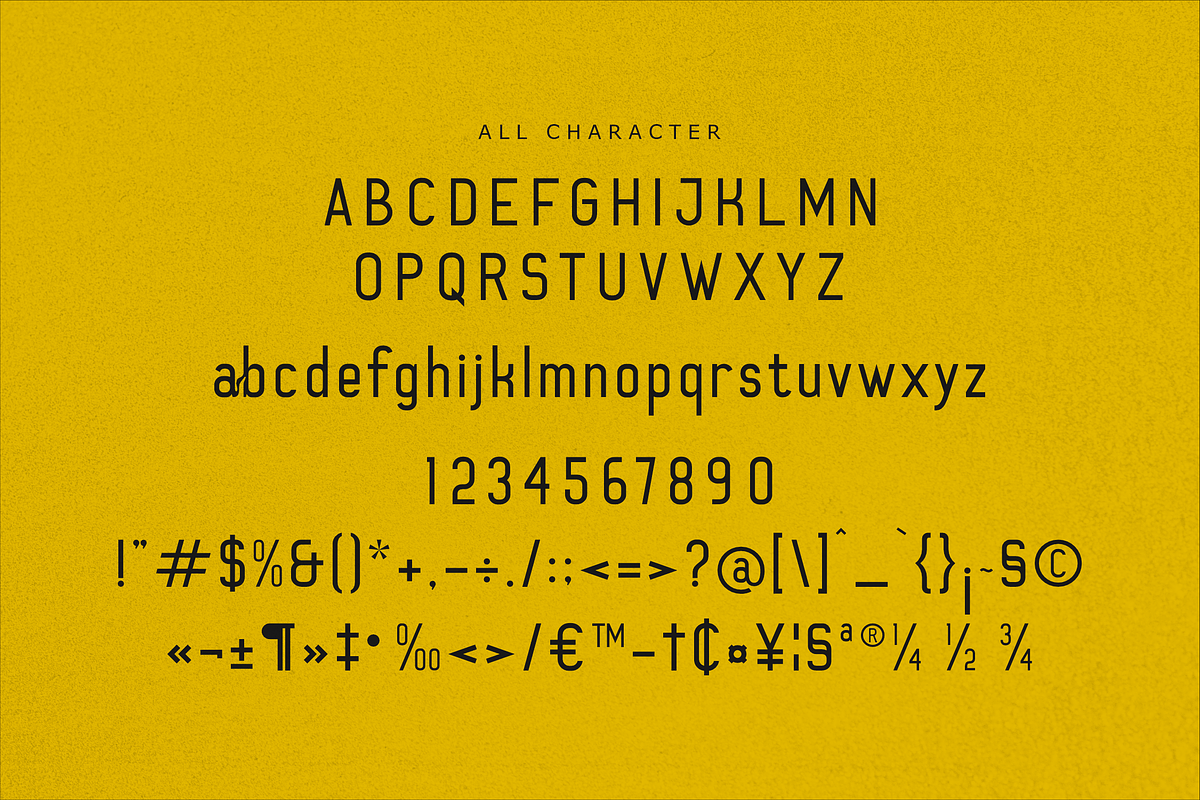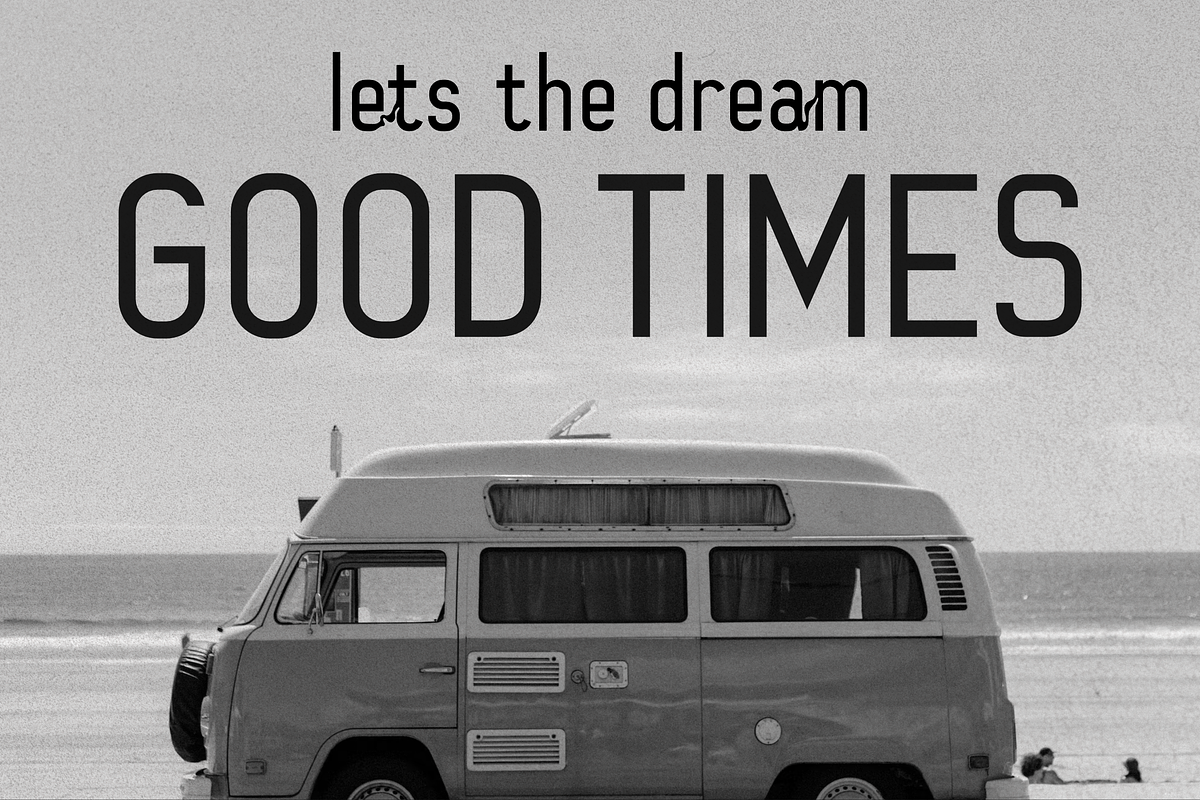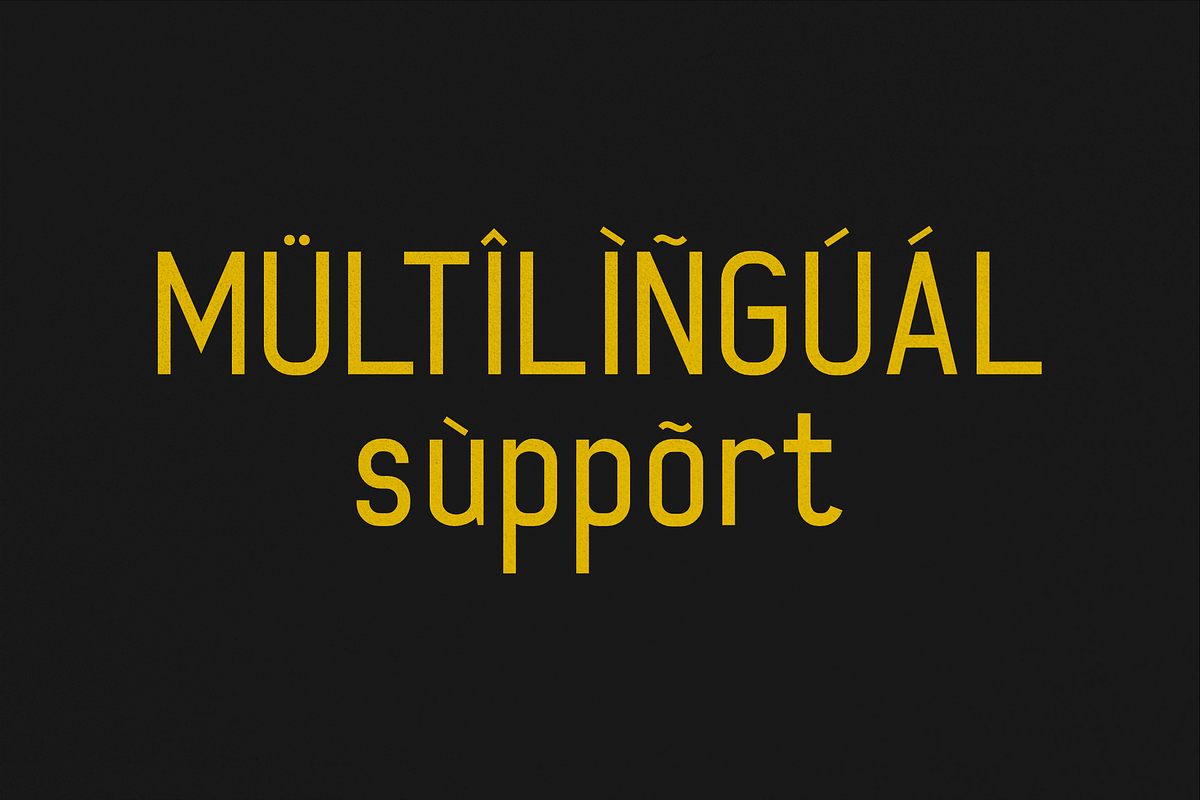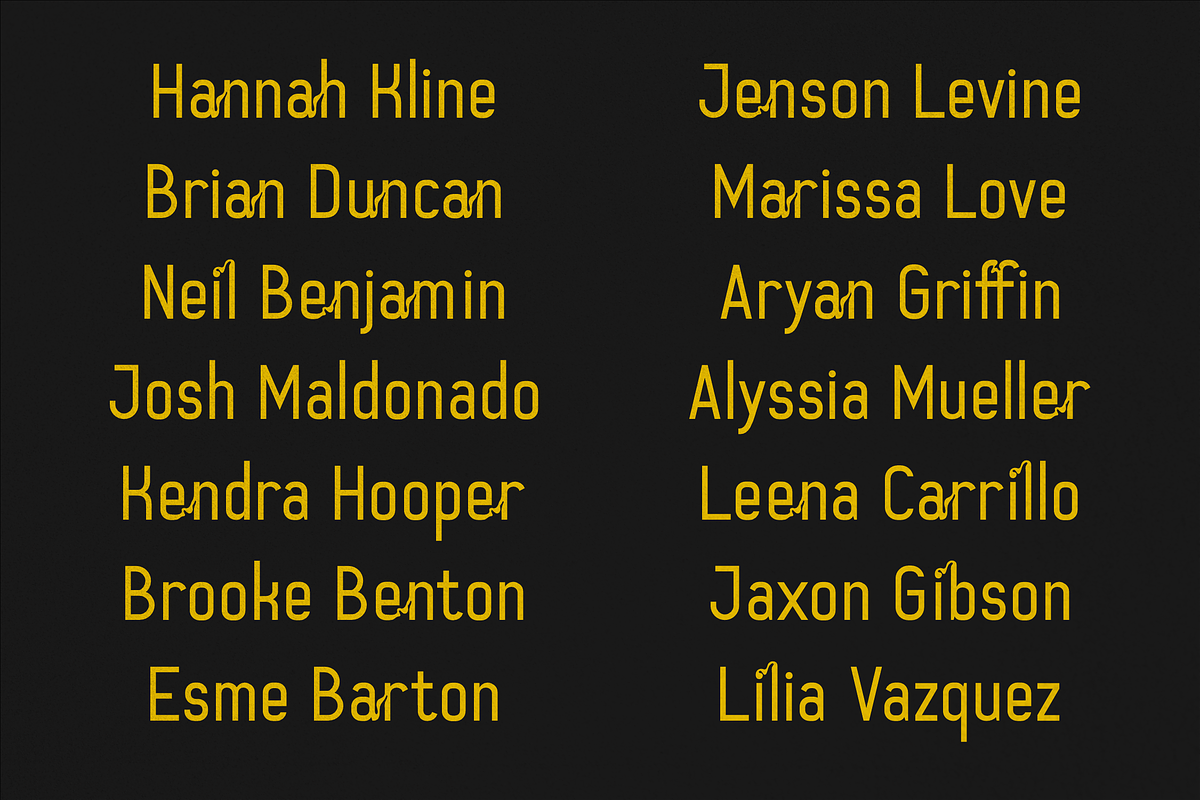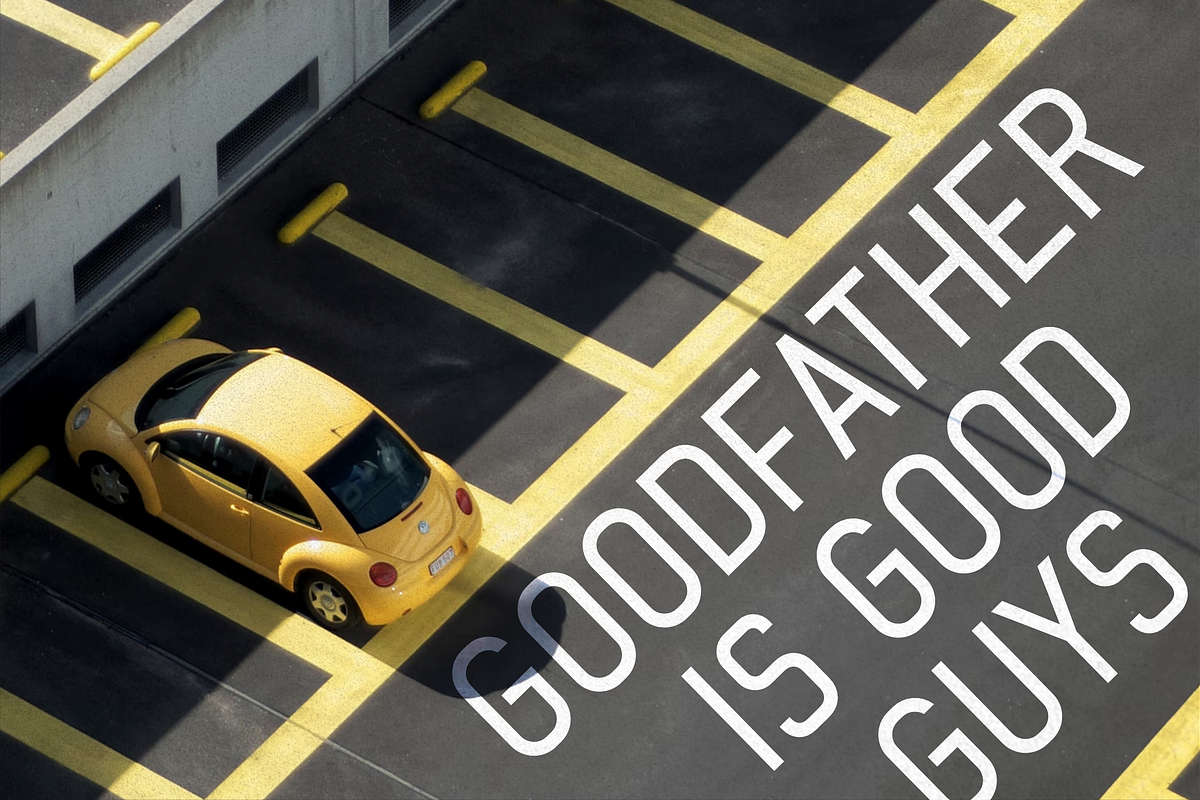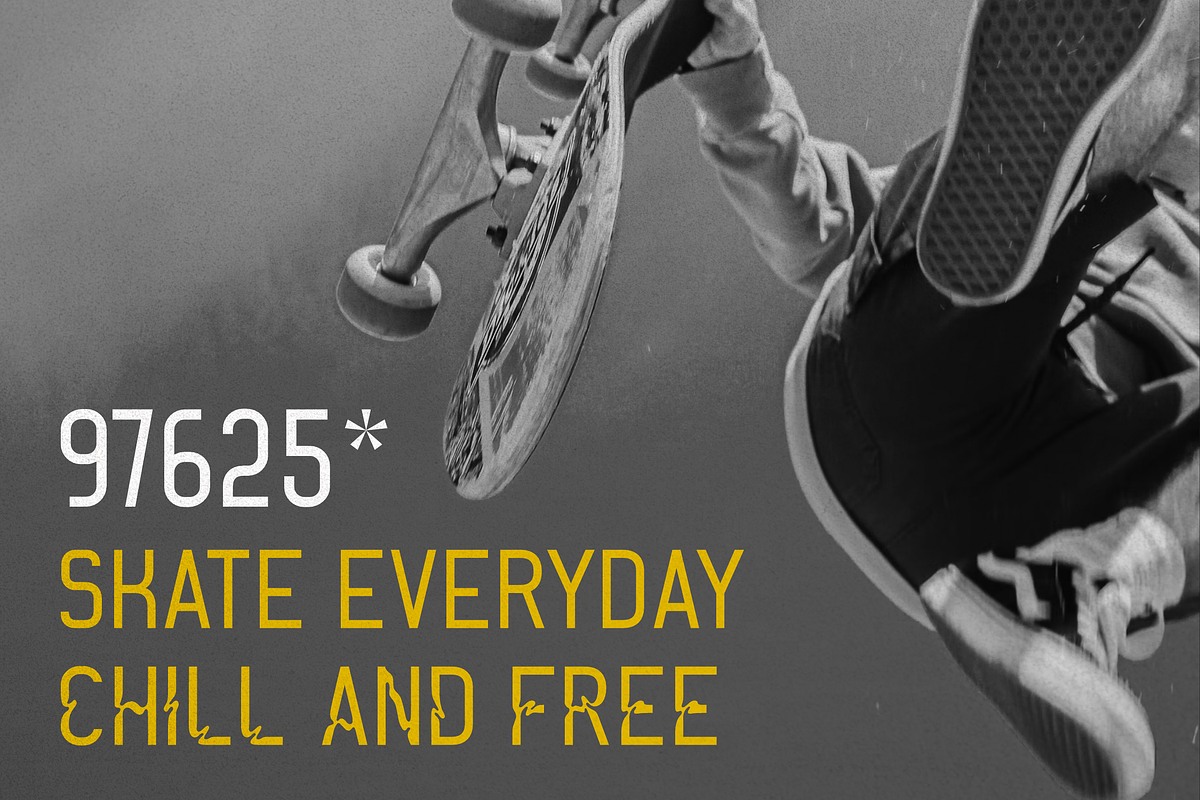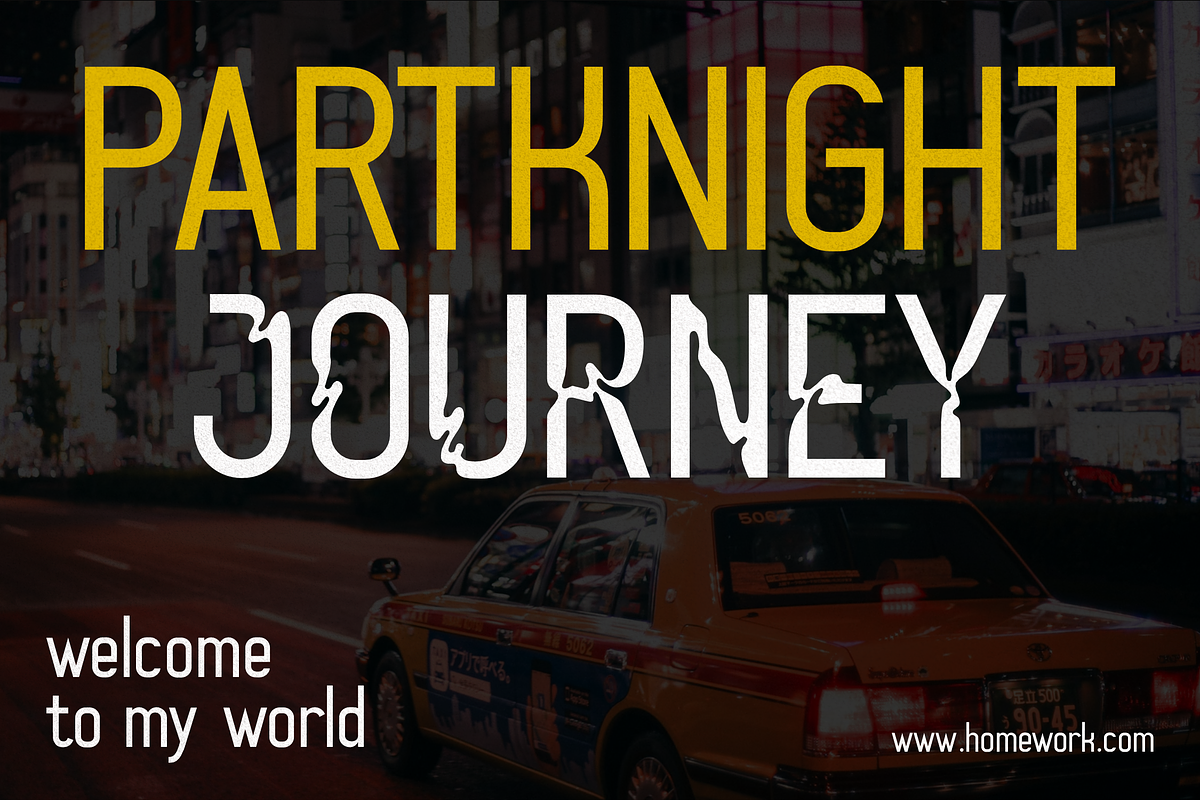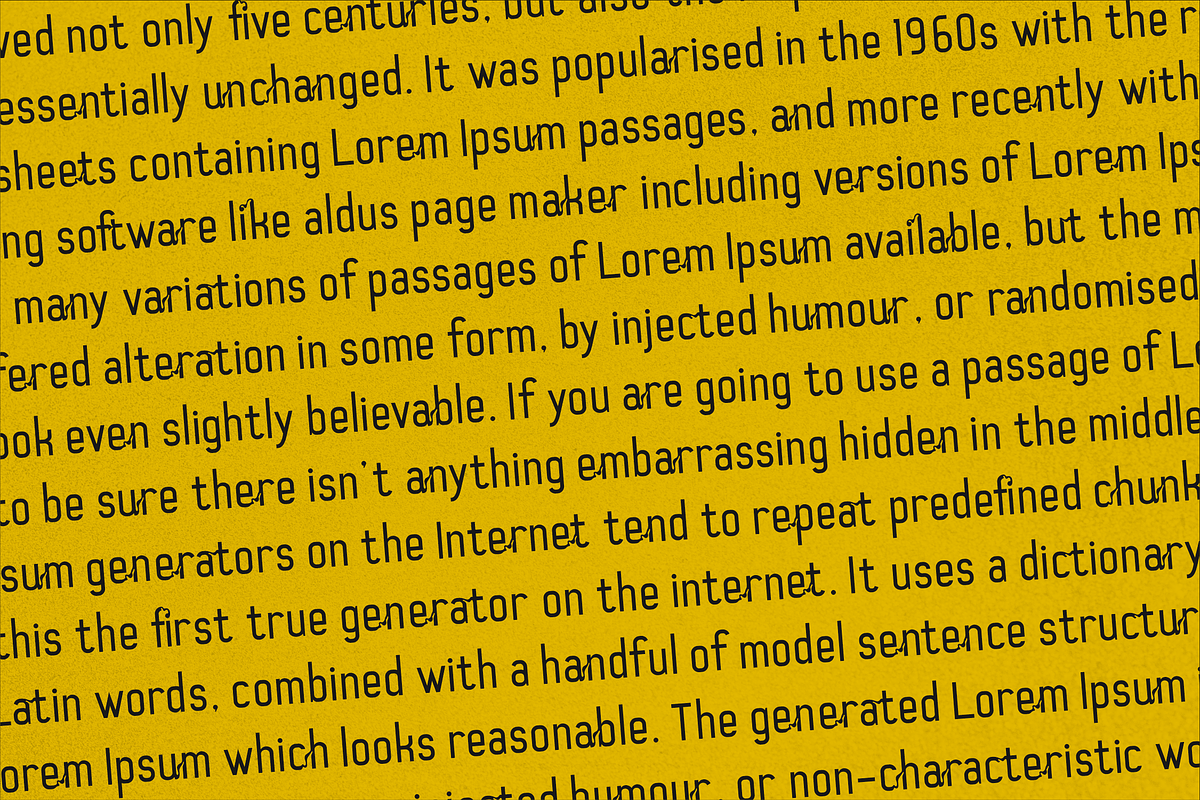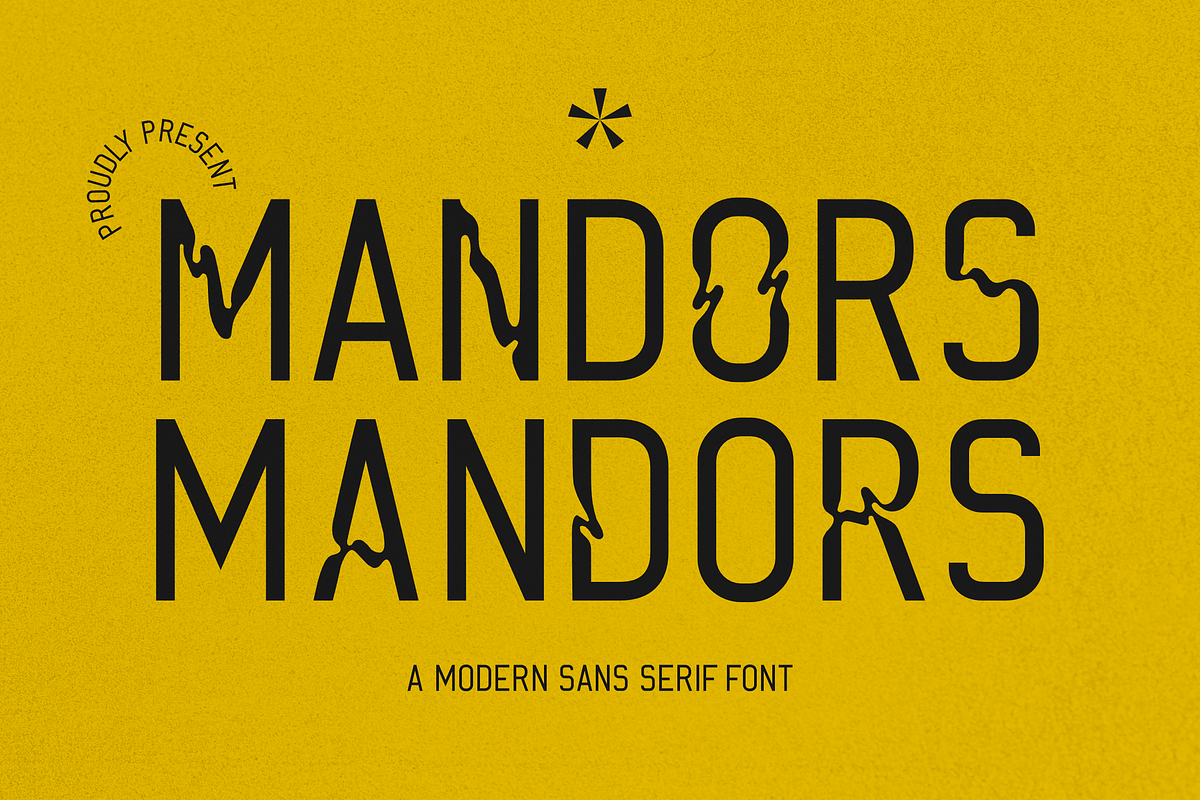
Mandors A Modern Sans Serif Font
Proudly present Mandors Modern Sans Serif , created by Storytype, A serif modern and classic typeface that has own unique style & modern look. This typeface is perfect for an elegant & luxury logo, book or movie title design, fashion brand, magazine, clothes, lettering, quotes, and so much more.